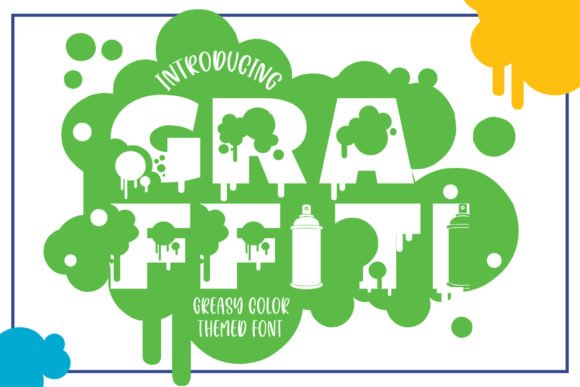
The Art of Self-Expression: Unlocking the Power of Graffiti Font
Remember that moment when you felt the urge to express yourself creatively? Maybe it was a late-night sketch session, a spontaneous painting session, or a burst of inspiration in the middle of a design project. Whatever it was, it’s a feeling that every creative individual can relate to. And for designers, this feeling is often fueled by the desire to create something unique and eye-catching.
Enter the Graffiti Font, a decorative font that’s perfect for adding a touch of personality to your designs. Whether you’re creating a poster, flyer, or print, this font is sure to make a statement. Its bold, playful style is not only visually appealing but also versatile enough to be used in a variety of contexts.
For designers, the Graffiti Font is a valuable tool that can help take their designs to the next level. With its endless possibilities, it’s the perfect way to add a personal touch to any project. So why not give it a try and see what amazing creations you can come up with?
- Unique Characteristics: Distinctive graffiti-style lettering with bold, playful strokes and rounded edges
Graffiti Font Review
I recently had the chance to work with the Graffiti Font, and I have to say, it’s a love-hate relationship. ✨ One thing that really stands out is its unique and playful feel. The font is perfect for creating eye-catching headings or titles, and it’s great for designers who want to add a bit of edginess to their projects.
Another positive aspect of the Graffiti Font is its versatility. It comes in a range of styles and weights, making it easy to use in various contexts. Whether you’re designing a logo, a poster, or a website, this font is sure to add some flair.
While the Graffiti Font has its strengths, there are some limitations to consider. ⚠️ For one, the font can be difficult to read in certain contexts. The irregular letterforms and bold lines can make it hard to decipher the text, especially at smaller font sizes.
In conclusion, the Graffiti Font is a great choice for designers who want to add some visual interest to their projects. While it may not be the most legible font, its unique style and versatility make it a valuable addition to any design toolkit.
- Unique and playful feel
- Versatile and comes in a range of styles and weights
- Perfect for eye-catching headings and titles
- Can be difficult to read in certain contexts
- Not suitable for large blocks of text
Tips for Getting the Most Out of Graffiti Font
To get the most out of the Graffiti font, use it in bold, colorful, and playful designs. Experiment with different font sizes, colors, and effects to create a unique look.
The Graffiti font is commonly used in:
1. Street art and graffiti designs.
2. Music festival and concert posters.
3. Urban and edgy fashion designs.
4. Youth culture and social media graphics.
Alternatives to Graffiti Font
Great Vibes is a playful, handwritten font ideal for titles, headings, and short phrases. It features a mix of cursive and handwritten elements, giving it a relaxed, casual feel. When to use: advertisements, social media posts, and informal designs. Compared to Graffiti Font, Great Vibes is more legible and suitable for longer texts.
Pacifico is a beautiful, elegant script font perfect for titles, headings, and body text. It features a flowing, handwritten feel with a mix of cursive and serif elements. When to use: luxury brands, high-end designs, and formal documents. Compared to Graffiti Font, Pacifico is more refined and sophisticated.
Cinzel
Cinzel is a calligraphic font inspired by ancient inscriptions. It features a mix of serif and script elements, giving it a unique, elegant feel. When to use: titles, headings, and formal documents. Compared to Graffiti Font, Cinzel is more formal and suitable for a wider range of designs.